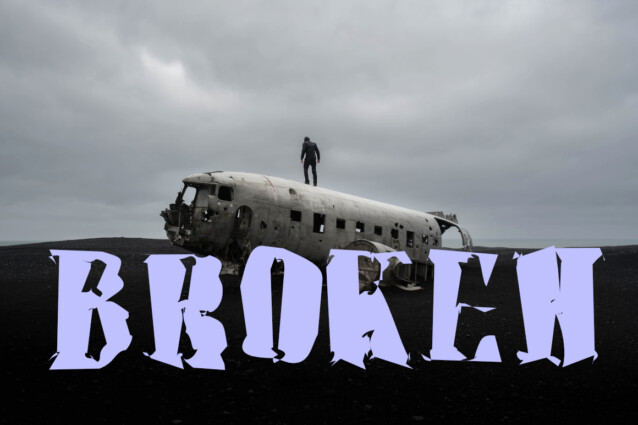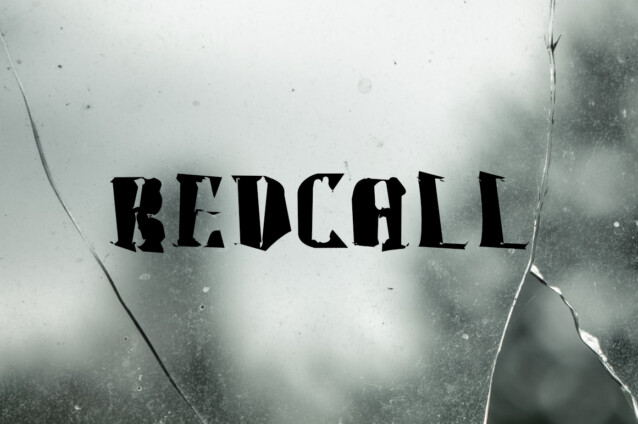
Warriot Strange Font is a bold and retro styled serif font. Simple and bold, this font works best in a variety of contexts. It is suitable for any branding, product packaging, invitation, quote, t-shirt, label, poster, logo that you wish to develop.